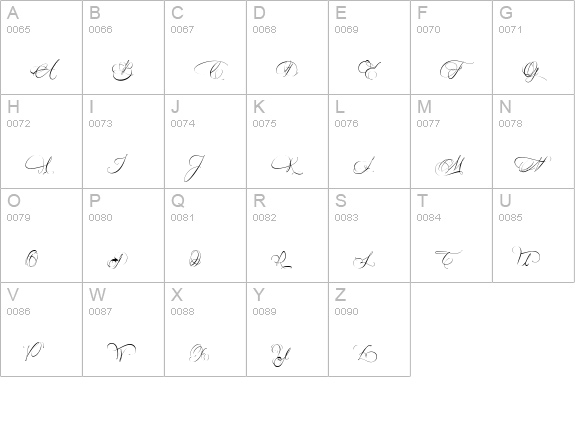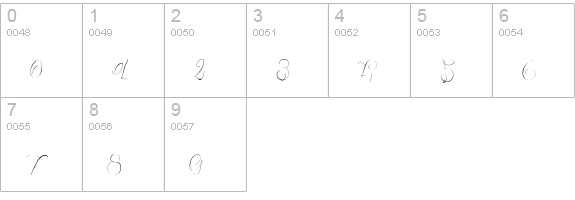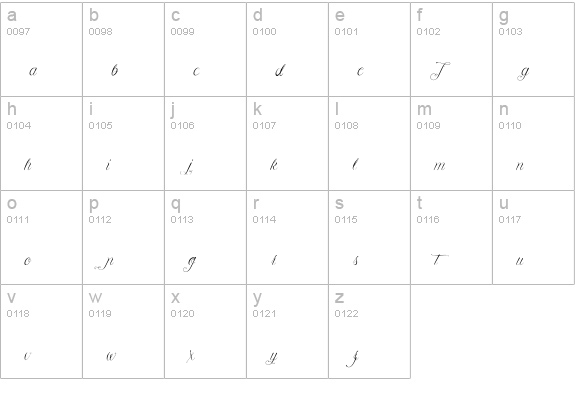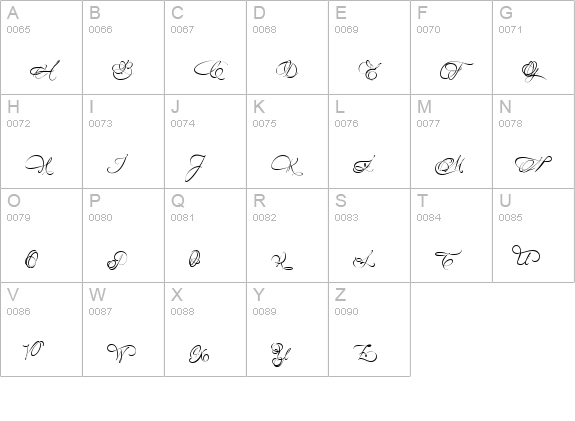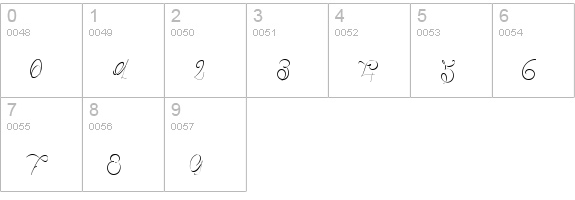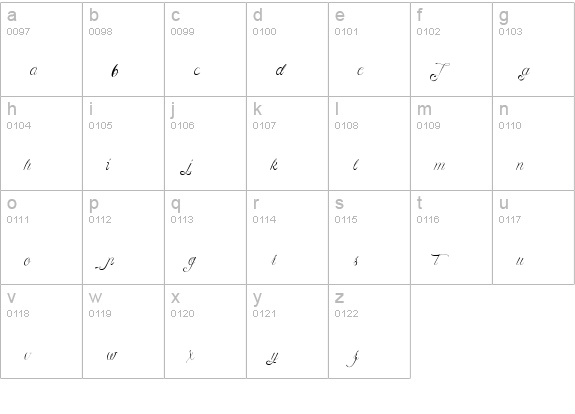
Aligot de Mirabelle Font Details
Aligot de Mirabelle font is a stunning and elegant typeface that exudes sophistication and charm. With its delicate curves and graceful letterforms, this font is perfect for adding a touch of class to any design project. The Aligot de Mirabelle font is a true testament to the beauty of calligraphy, with each stroke crafted with utmost care and precision. Its timeless appeal makes it suitable for a wide range of applications, from invitations and wedding stationery to branding and packaging designs. One of the best things about Aligot de Mirabelle font is that it is free. Yes, you read that right! This exquisite font is freely available to download at FontsMarket.com. This means that you can add a touch of elegance to your designs without having to spend a dime. Whether you're a professional designer or a creative enthusiast, Aligot de Mirabelle font is a must-have in your font collection. Its versatility and timeless beauty make it a perfect choice for any project, and the fact that it is free makes it even more desirable. So why wait? Download Aligot de Mirabelle font today from FontsMarket.com and elevate your designs to a whole new level of sophistication and elegance. Don't miss out on this amazing opportunity to add a touch of class to your creative endeavors.